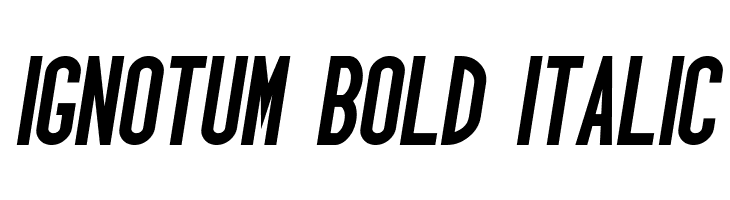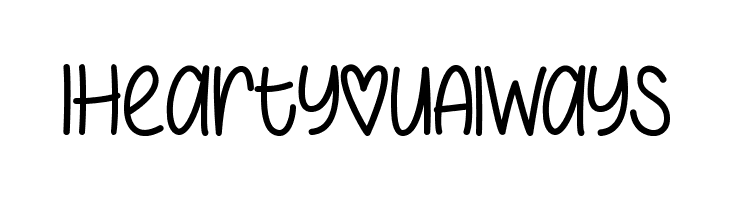
A bold, geometric font with sharp angles and a modern, futuristic style.
A playful, icy font with bold, rounded letters and a frosty theme.
A bold, geometric font with sharp angles and a modern, industrial feel.
A playful, handwritten font with smooth, flowing lines and a casual style.
A playful, rounded font with smooth curves and uniform stroke width.
A playful, bold font with rounded, bubble-like characters and a glossy 3D appearance.
A playful, bubble-like font with bold outlines and a whimsical style.
A playful, handwritten font with tall, narrow letters and a whimsical style.
A playful, hand-drawn font with tall, narrow letters and a whimsical style.